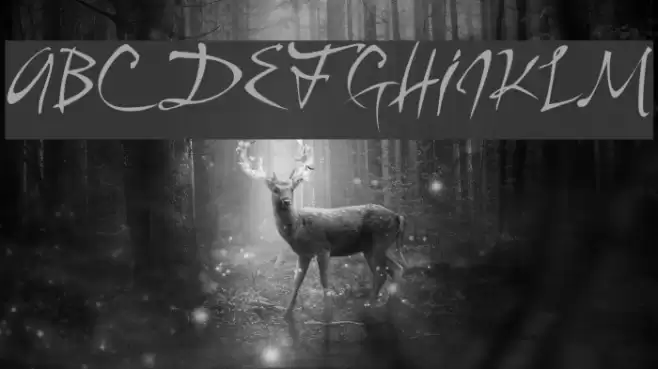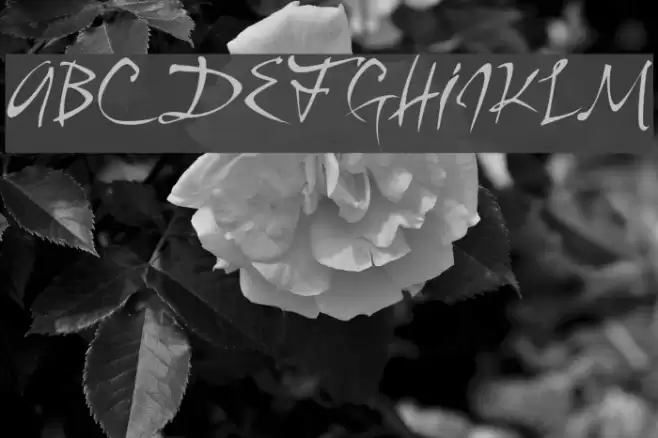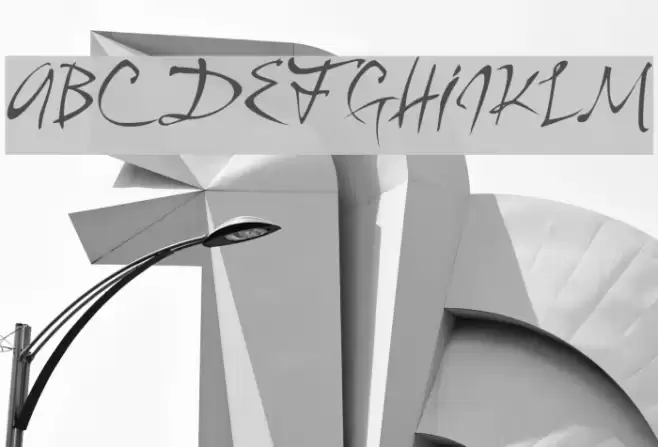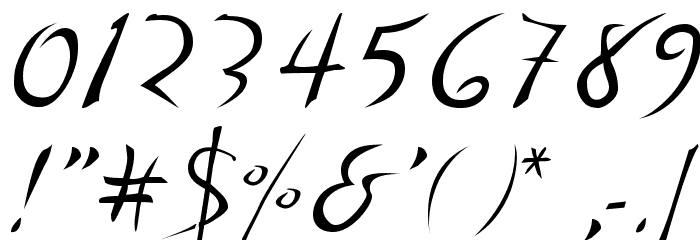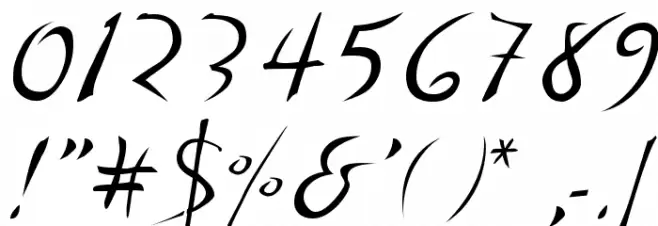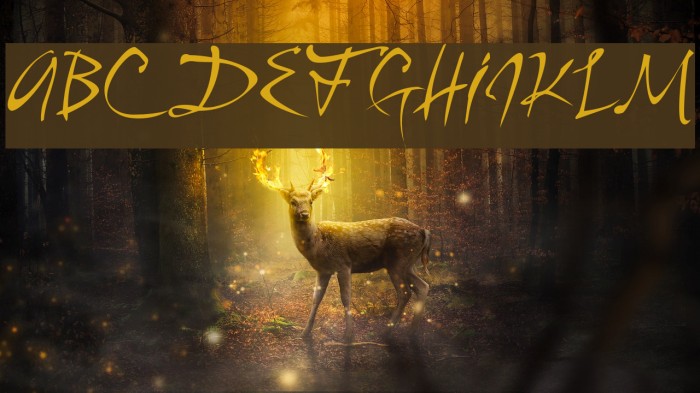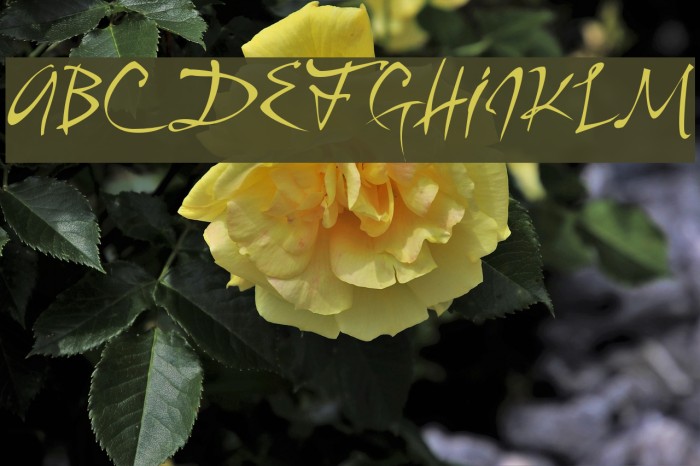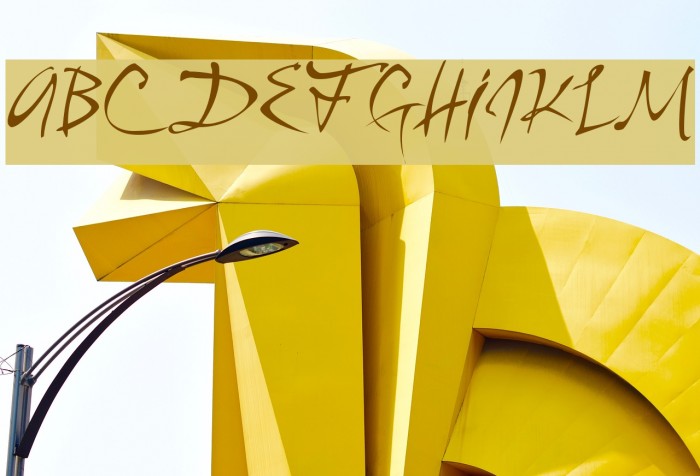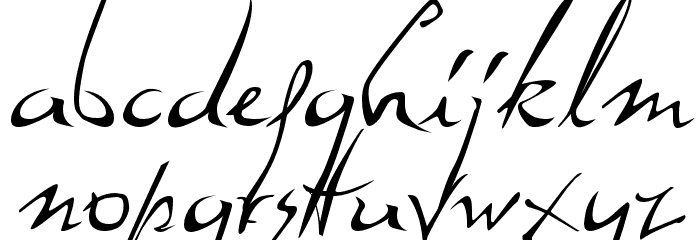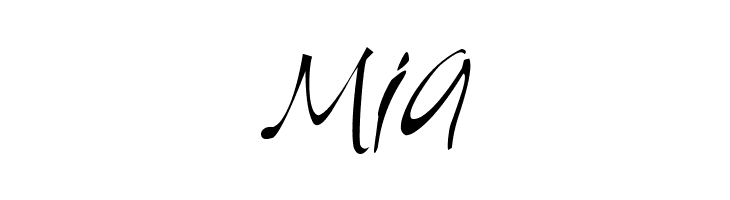
Dali Font
Dali Description
This font exhibits a highly expressive and artistic style, characterized by its fluid, sweeping strokes and dynamic curves. The letters have a calligraphic influence, with varying line thickness that adds a sense of movement and elegance. The uppercase letters are bold and dramatic, while the lowercase letters maintain a more subtle yet equally expressive form. The numerals and special characters follow the same artistic theme, ensuring consistency throughout. This font's unique style makes it stand out, perfect for creative projects that require a touch of sophistication and flair.
An expressive, calligraphic font with dynamic curves and artistic flair from Handwritten fonts.
- Proposed Projects: Ideal for invitations, artistic posters, branding, and creative design projects.
- Use Case: Logos, Invitations, Artistic Posters